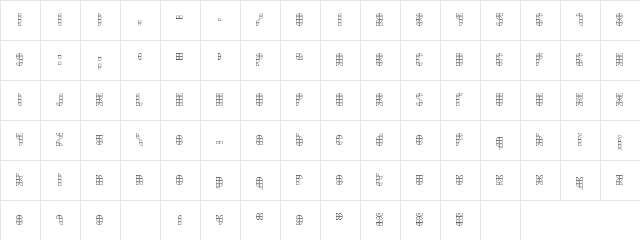
Bath NormalOutline
Design Context for Bath Typeface
Bath is built around its visual character rather than neutral utility — its distinctive forms are designed to make an impression at display sizes.
Font Pairing: Pair with a clean neutral sans-serif for body copy to let Bath's character lead without overwhelming the composition.
Pro Tip: Treat Bath as the centrepiece of your typographic hierarchy. One strong heading set in a decorative face can carry an entire layout.